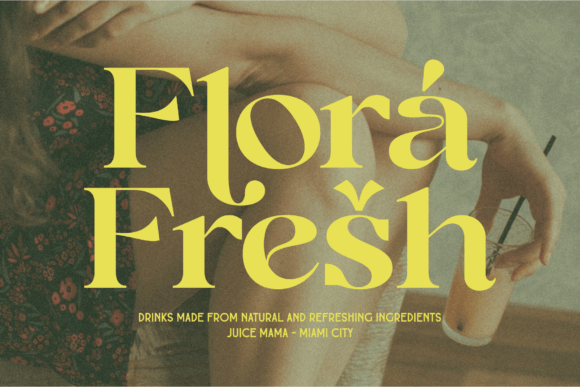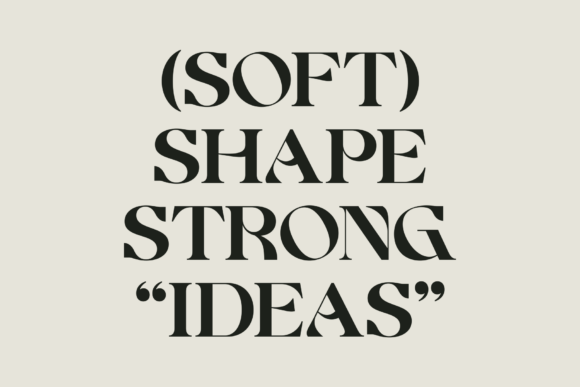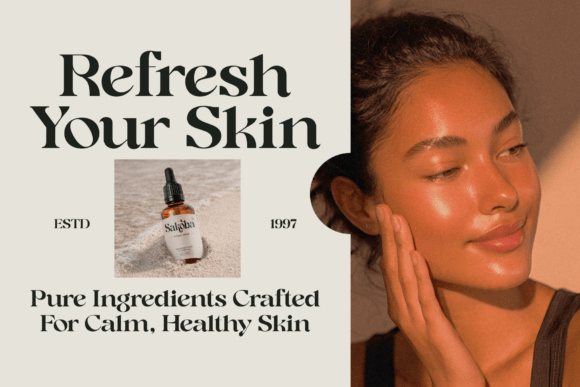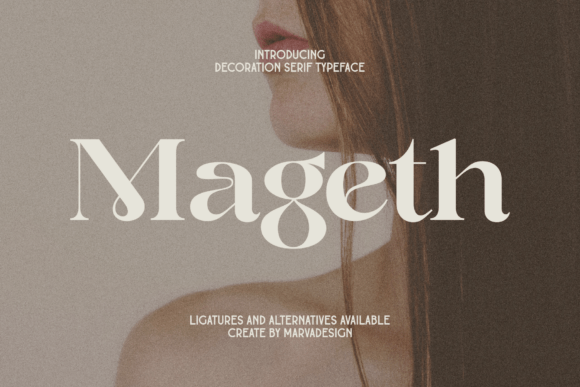
Introduction to Mageth Font
Mageth is a serif typeface that blends classic elegance with a contemporary, editorial sensibility.
Its letterforms feature high contrast strokes, softly sculpted curves, and distinctive teardrop terminals that create a refined yet expressive personality The serifs are gracefully shaped, giving Mageth a luxurious and timeless feel, while subtle ligatures and stylistic alternates add a sense of artistry and fluid rhythm to the typography.
Key Features of Mageth Font
Why Choose Mageth Font?